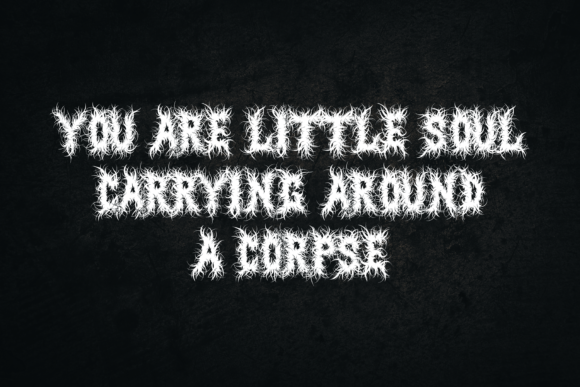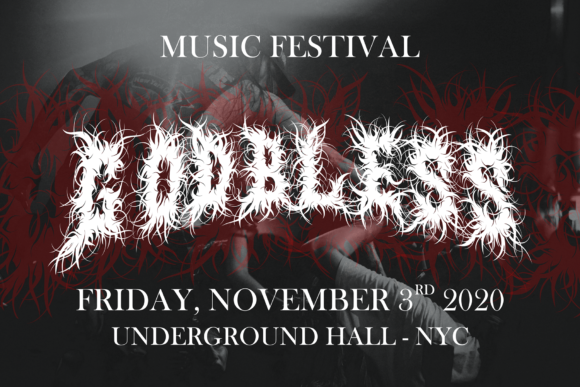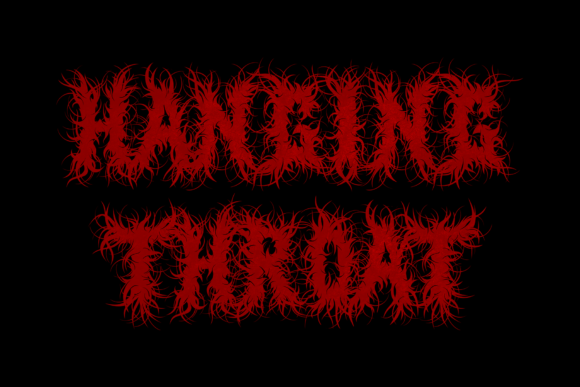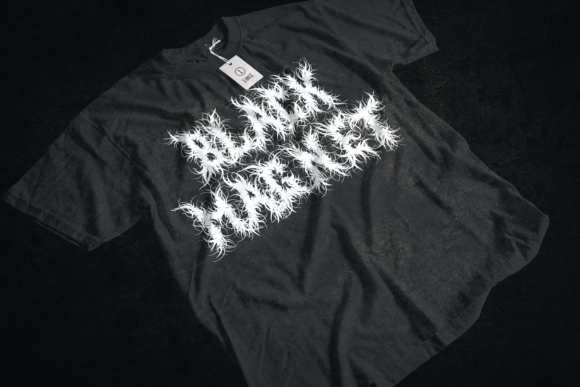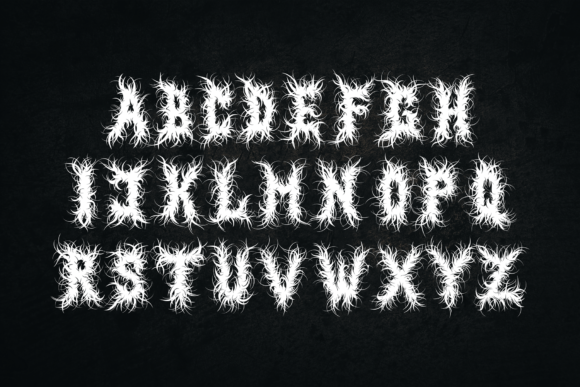
Unleash the Power of Black Magnet Font: A Rough and Metal-Themed Blackletter Masterpiece
Are you a designer or crafter looking for a font that exudes power, intensity, and a touch of ruggedness? Look no further than the Black Magnet Font, a great-looking, rough, and metal-themed blackletter font that’s perfect for a variety of projects. In this article, we’ll dive into the world of Black Magnet Font, exploring its features, uses, and benefits, and why it’s an excellent choice for designers and crafters alike.
What is Black Magnet Font?
Black Magnet Font is a unique and striking blackletter font that’s inspired by the raw energy of metal music. Its rough, distressed texture and bold, rugged design make it an ideal choice for projects that require a strong, edgy look. Whether you’re working on a death metal music project, a DIY craft, or a design project that needs a bold statement, Black Magnet Font is the perfect tool for the job.
Key Features of Black Magnet Font
- Rough and Distressed Texture: Black Magnet Font features a rough, distressed texture that gives it a worn, rugged look.
- Metal-Themed Design: Inspired by the raw energy of metal music, Black Magnet Font boasts a bold, metal-themed design that’s perfect for metalheads and designers alike.
- Blackletter Style: This font features a classic blackletter style, characterized by bold, dramatic letterforms and intricate details.
- High-Quality Design: Black Magnet Font is designed with high-quality craftsmanship in mind, ensuring that every letterform is precise, clear, and legible.
Uses for Black Magnet Font
Black Magnet Font is an incredibly versatile font that can be used in a wide range of projects, including:
- Music Projects: Perfect for death metal, heavy metal, and hard rock music projects, including album covers, posters, and merchandise.
- DIY Crafts: Add a touch of industrial chic to your DIY crafts, such as woodworking, metalworking, or mixed media art.
- Design Projects: Use Black Magnet Font to add a bold, edgy look to your design projects, including logos, branding, and advertising materials.
- Signage and Displays: Create eye-catching signage and displays with Black Magnet Font, perfect for businesses, events, or exhibitions.
Benefits of Using Black Magnet Font
So why choose Black Magnet Font for your next project? Here are just a few benefits of using this amazing font:
- Instant Impact: Black Magnet Font makes an instant impact, grabbing attention and drawing the viewer in with its bold, rugged design.
- Versatility: This font is incredibly versatile, suitable for a wide range of projects and applications.
- Unique Style: Black Magnet Font offers a unique style that’s sure to set your project apart from the crowd.
- Easy to Use: With its clear, legible design, Black Magnet Font is easy to use and works seamlessly with most design software.
In conclusion, Black Magnet Font is a powerful, versatile, and great-looking font that’s perfect for designers and crafters looking to add a touch of industrial chic to their projects. With its rough, distressed texture, metal-themed design, and bold blackletter style, this font is sure to make a statement. Whether you’re working on a music project, DIY craft, or design project, Black Magnet Font is an excellent choice. So why wait? Download Black Magnet Font today and unleash its power in your next project!